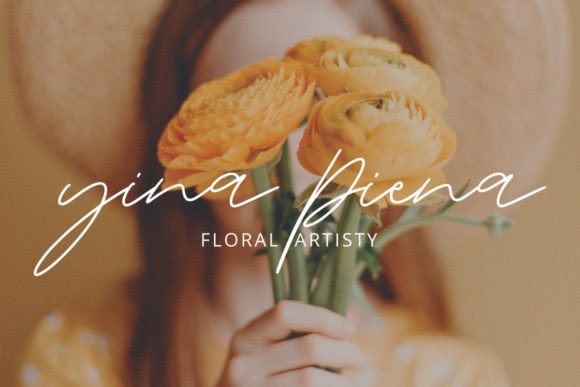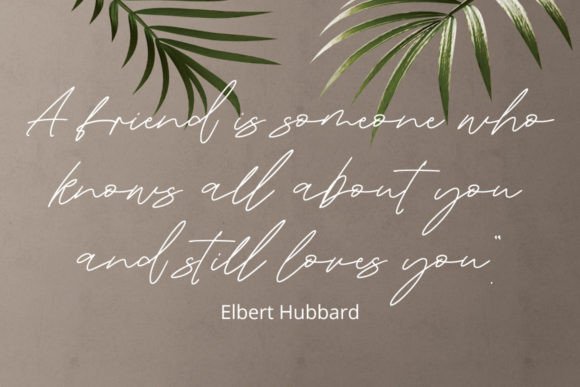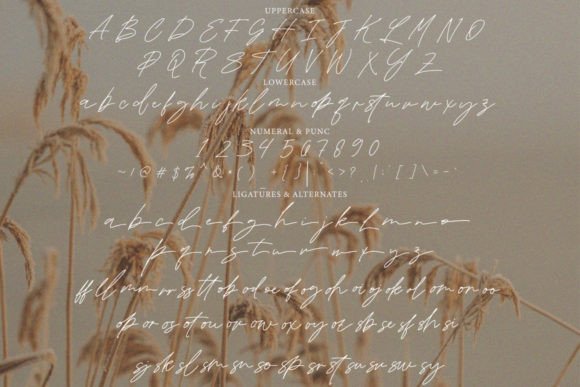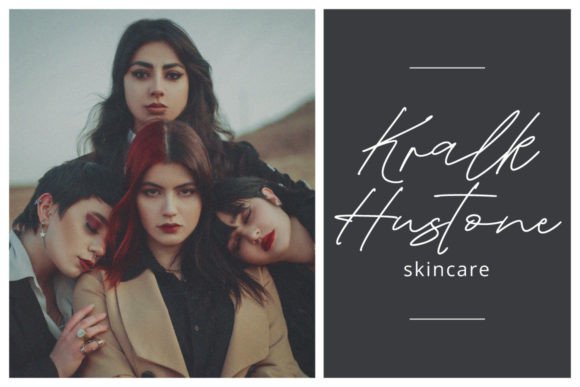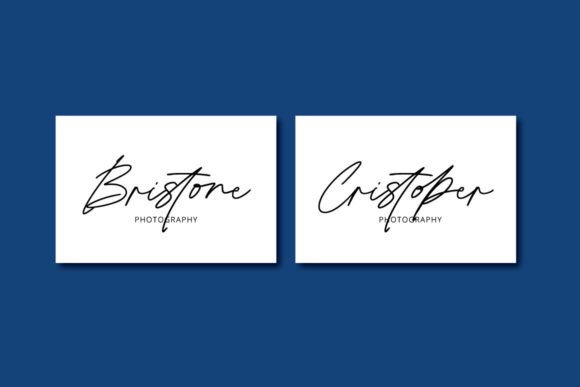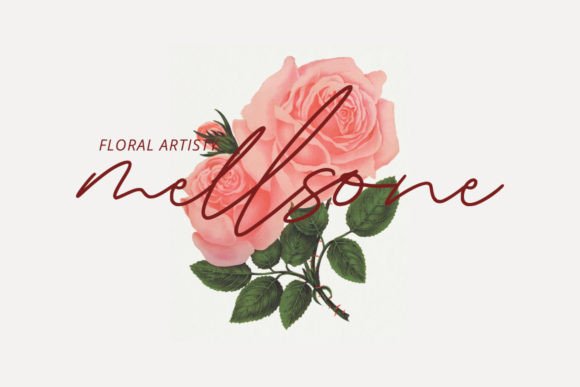
Discover the Elegance of Blowing Signature Font
Have you ever found yourself stuck in a design rut, searching for the perfect font to elevate your project to the next level? I know I have. There’s something about a well-crafted font that can make all the difference in conveying a message or creating a lasting impression. For me, that moment came when I stumbled upon Blowing Signature Font – a luxurious handwritten font that exudes elegance and sophistication.
With its delicate, flowing curves and ornate flourishes, Blowing Signature Font adds a touch of refinement to any design project. Whether you’re creating a brand identity, designing an invitation, or crafting an editorial piece, this stunning font is sure to impress. Its versatility and PUA encoding make it a valuable asset for designers looking to add a touch of luxury to their work.
- Unique Characteristics: The Blowing Signature Font features a unique, handwritten style with dynamic strokes and flair, perfect for adding a personal touch to your designs.
Designer Review: Blowing Signature Font
First impressions are everything, and Blowing Signature Font certainly makes a statement ✨. The flowing, cursive script is perfect for adding a touch of elegance to your designs. It’s ideal for creating beautiful, handwritten-style titles, quotes, or even entire articles.
One of the standout features of this font is its versatility ✨. It’s available in a range of weights, from Light to Bold, allowing you to adjust the tone to suit your design’s needs. This, combined with its OpenType features, makes it easy to create a wide variety of effects, from subtle texturing to dramatic flourishes.
- Flourishing, cursive script ✨
- Available in multiple weights ✨
- OpenType features for added versatility ✨
- Some characters may appear slightly irregular ⚠️
- Not ideal for body text, due to its flowing script nature ⚠️
- Limited language support ⚠️
Overall, Blowing Signature Font is a beautiful, versatile addition to any designer’s toolkit. While it may have some limitations, its strengths far outweigh its weaknesses, making it a great choice for designers looking to add a touch of elegance to their projects.
The Blowing Signature Font is commonly used for:
– Creating unique and personalized signatures
– Adding a creative touch to documents and presentations
– Designing custom invitations and event materials
– Enhancing the visual appeal of social media graphics